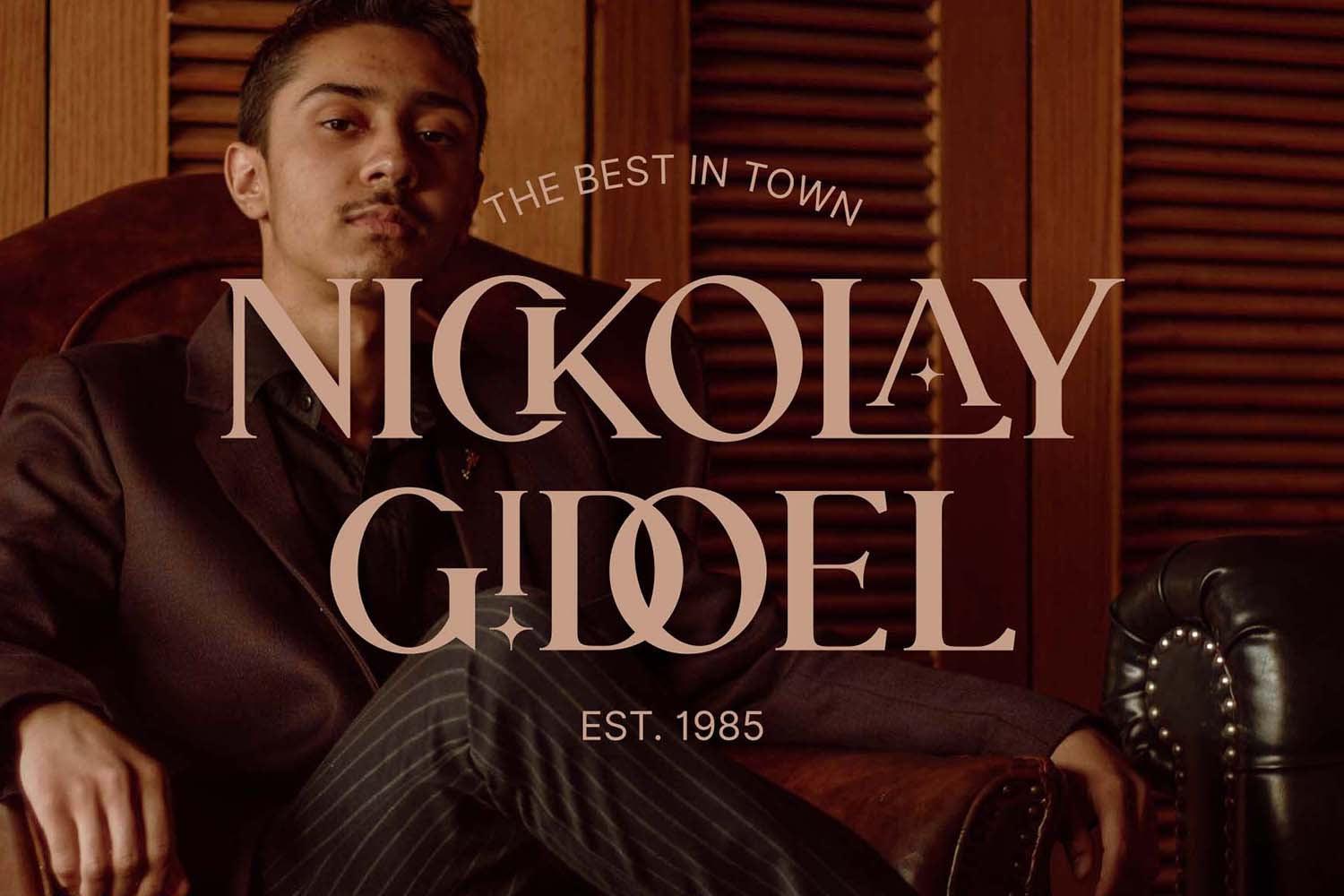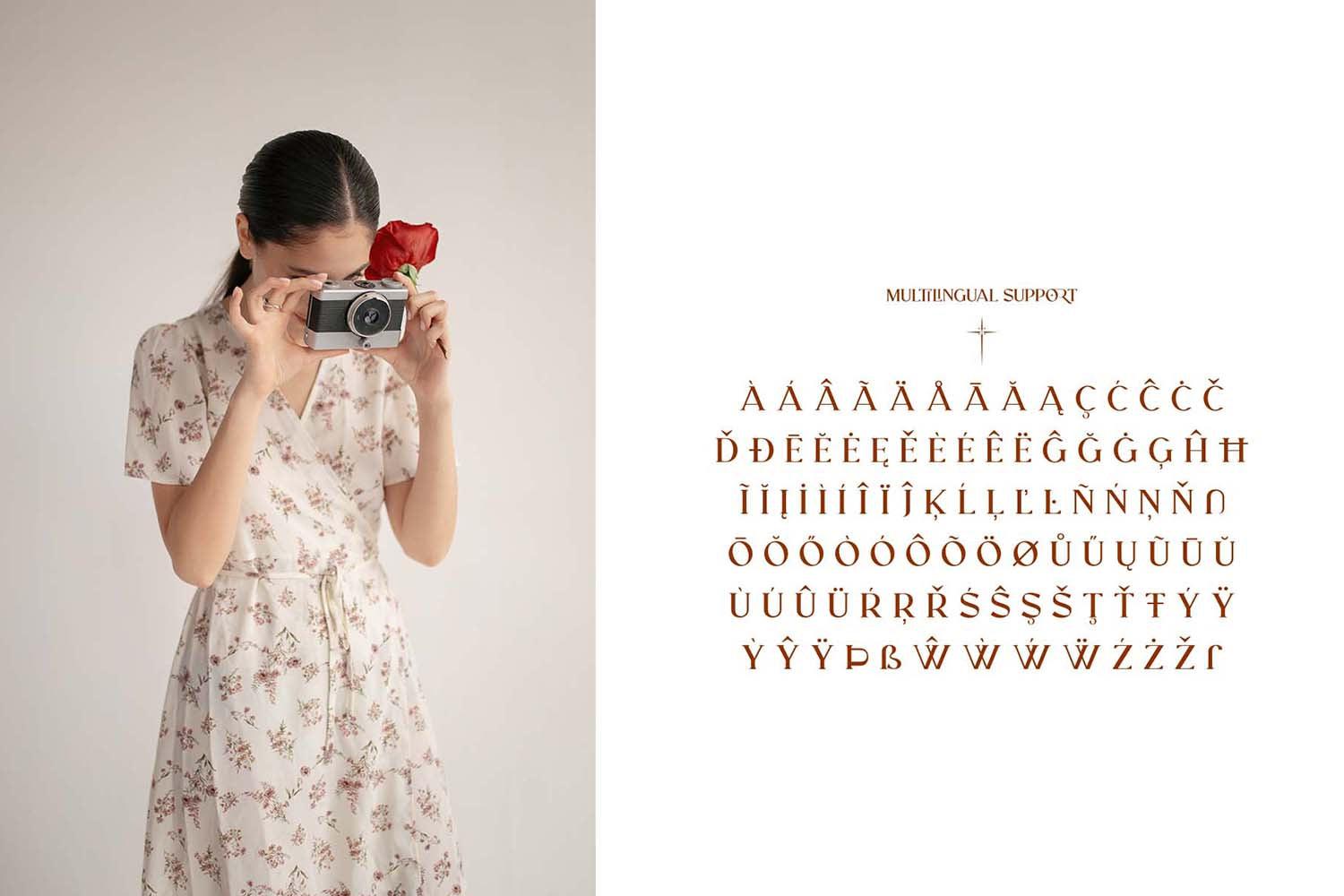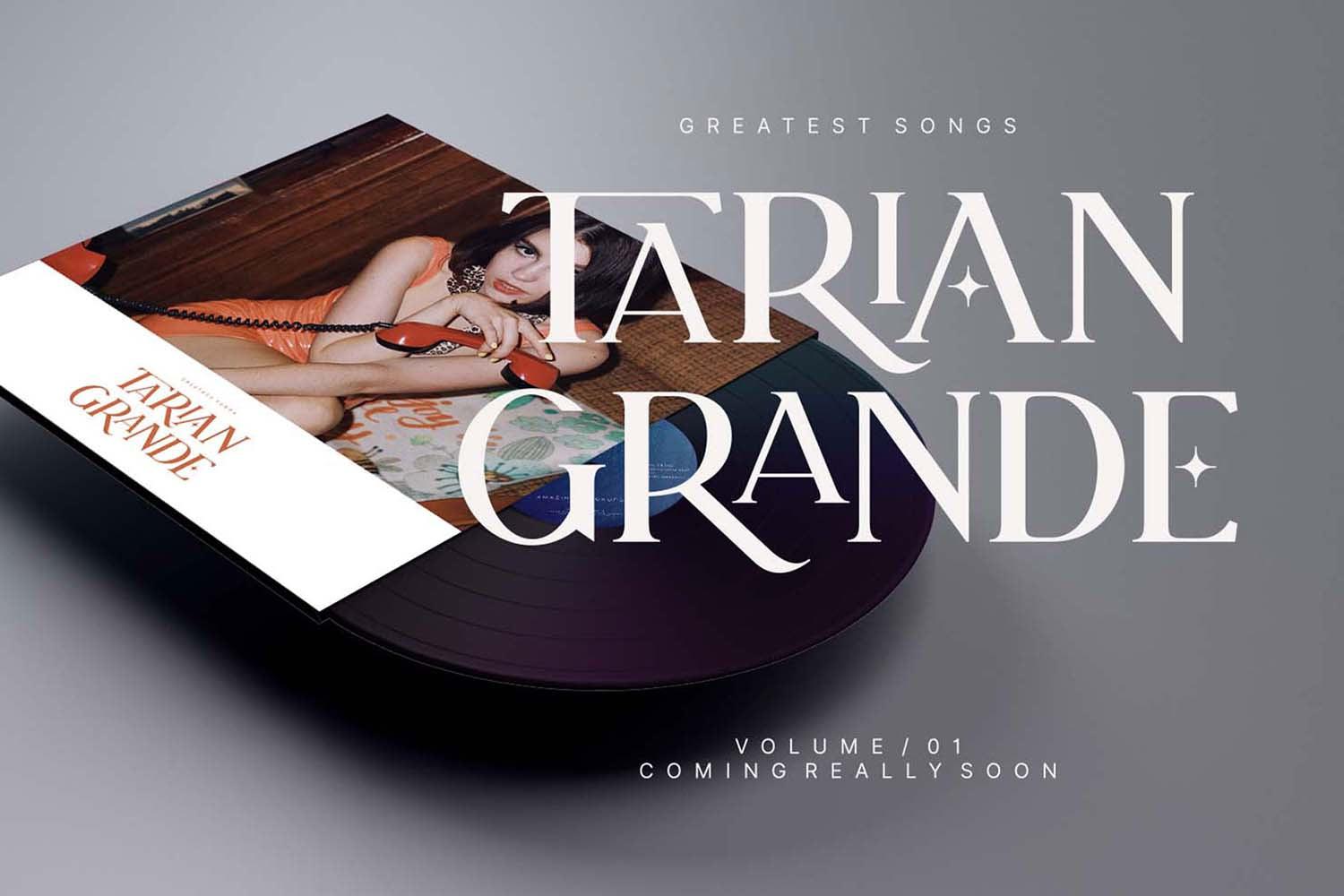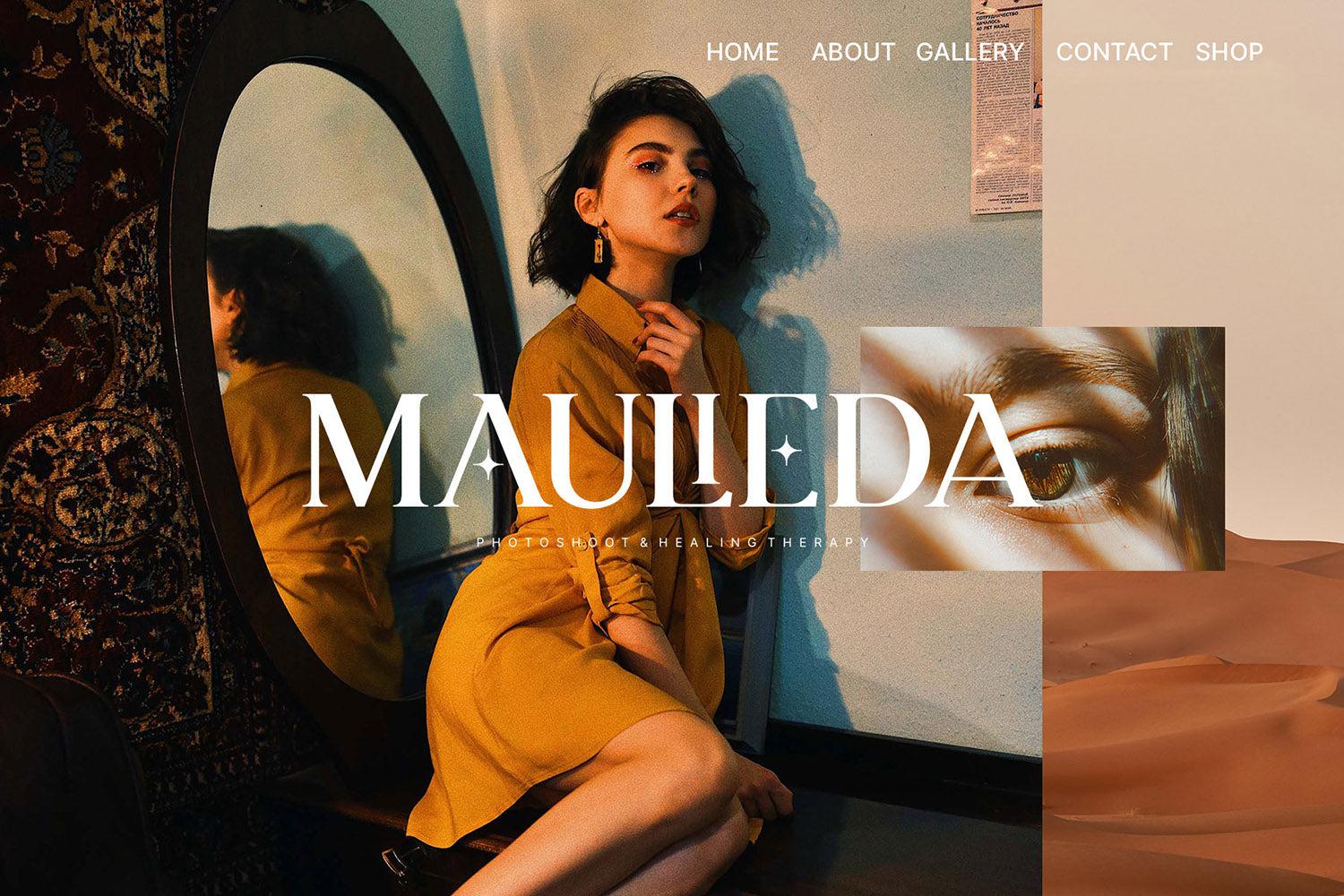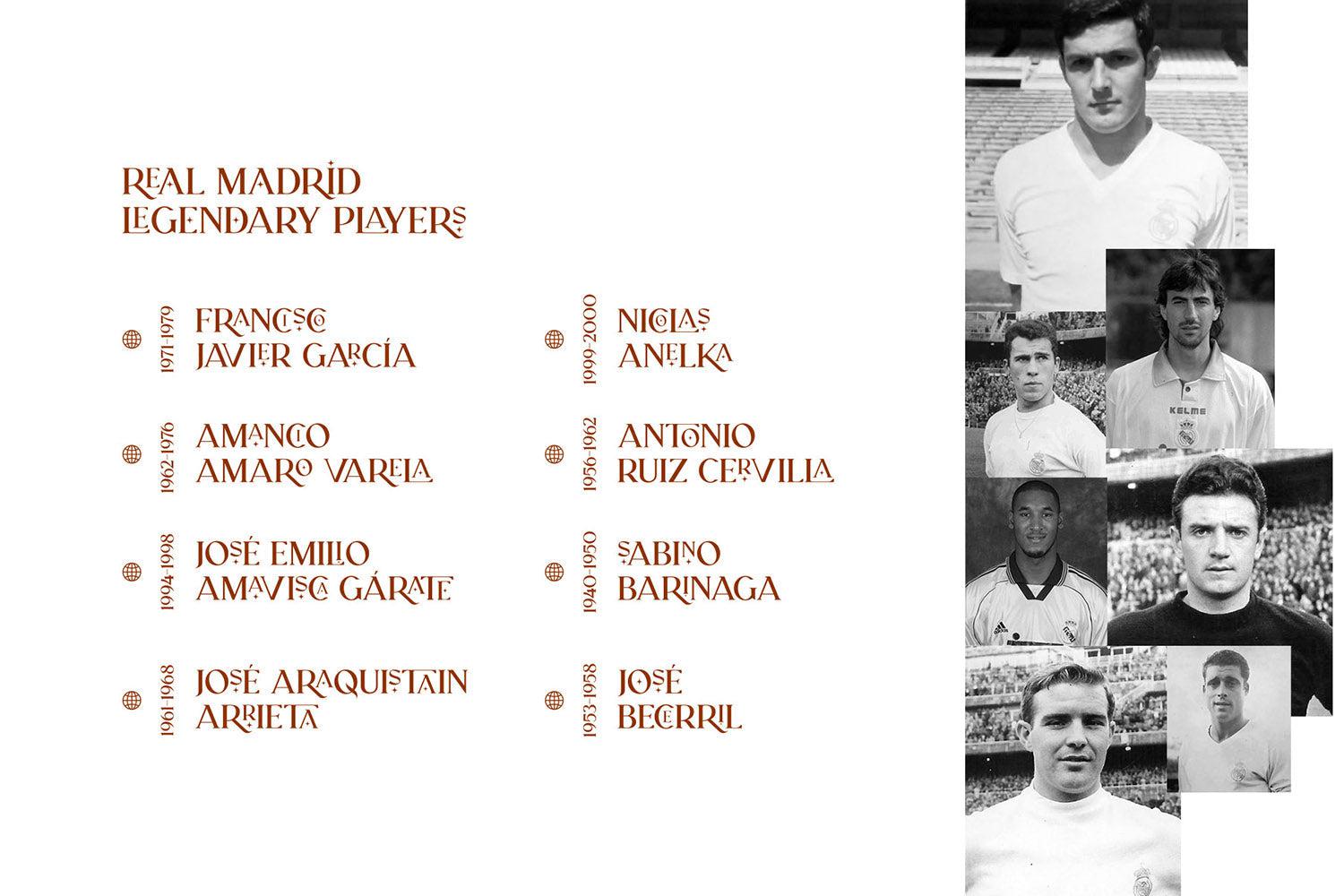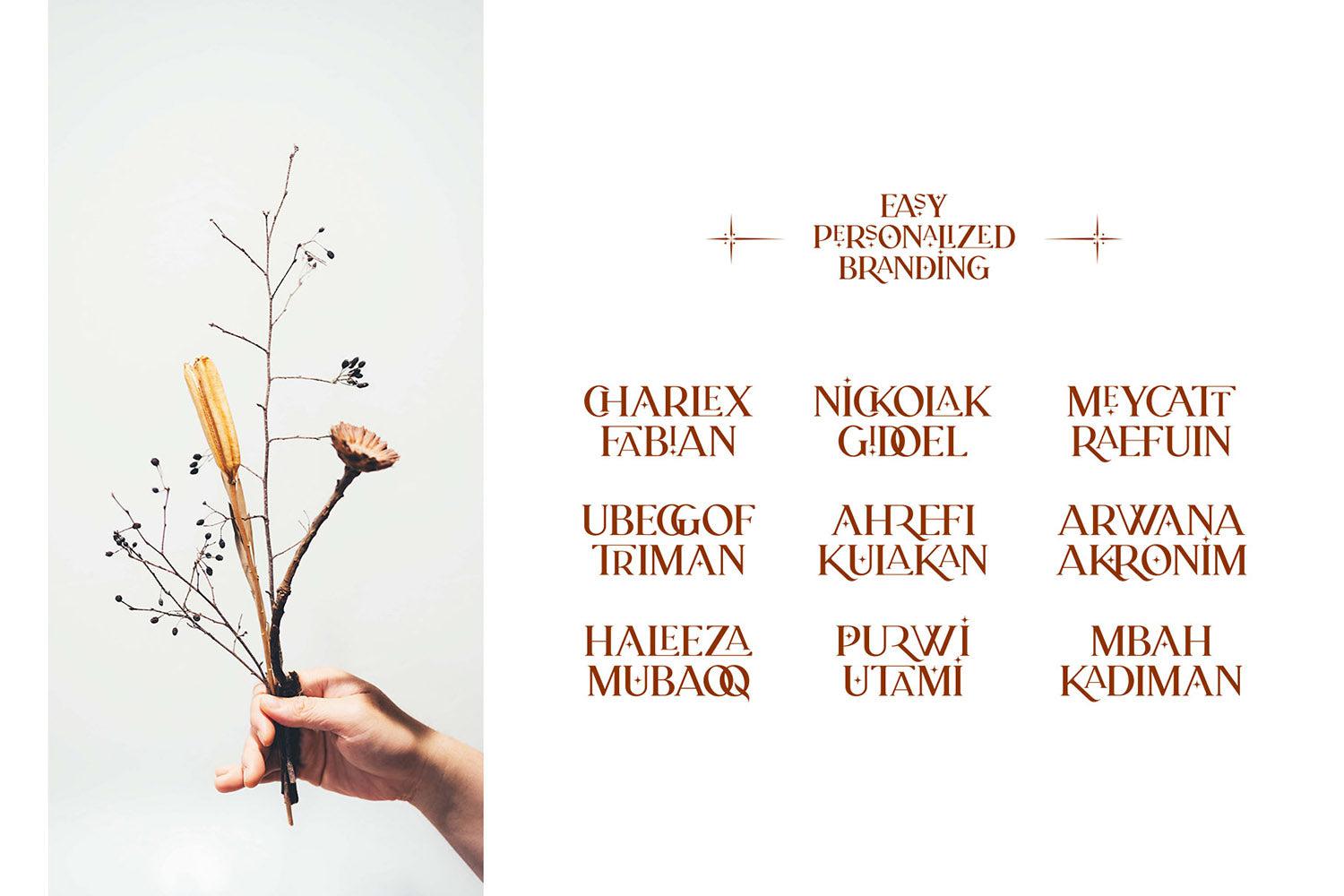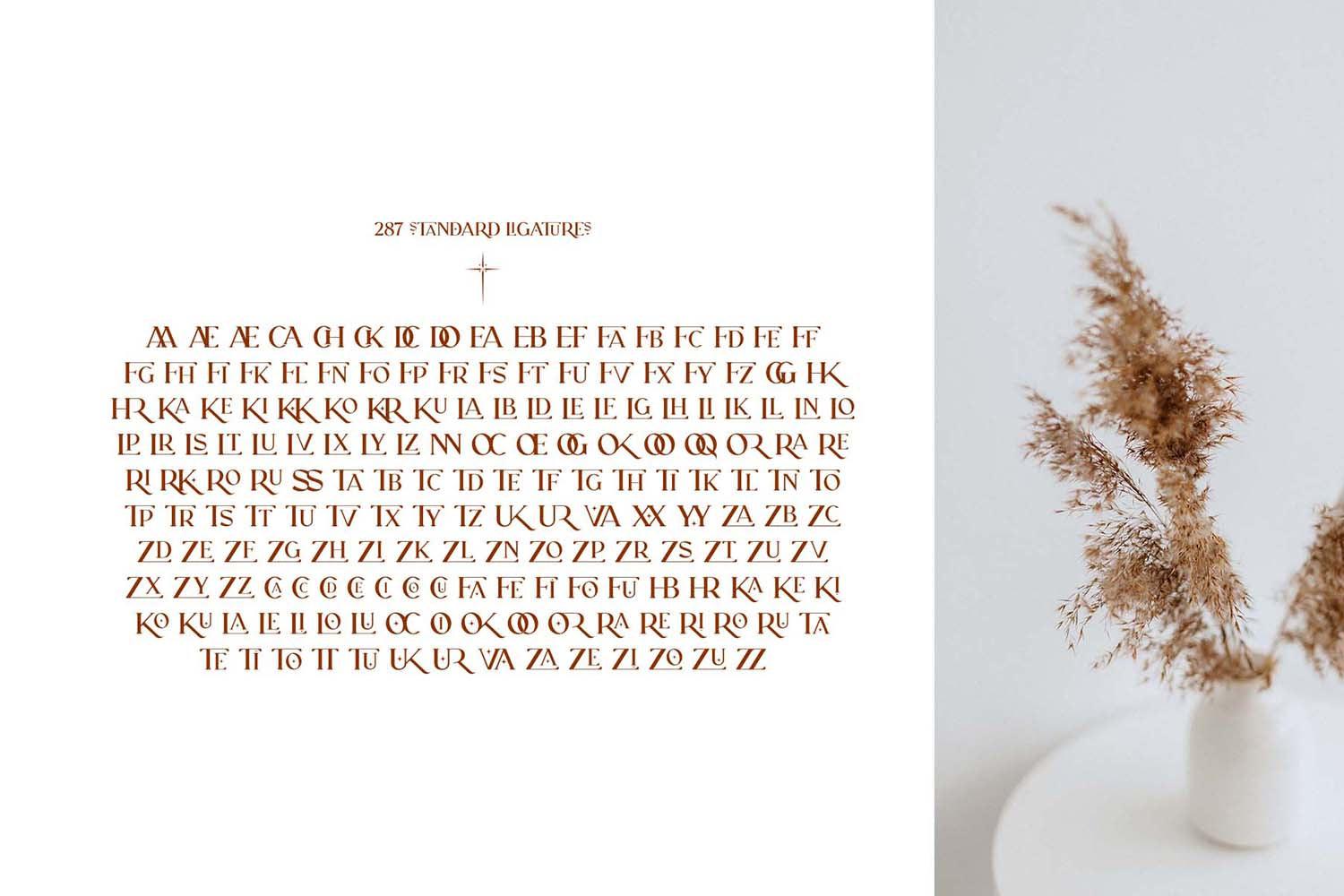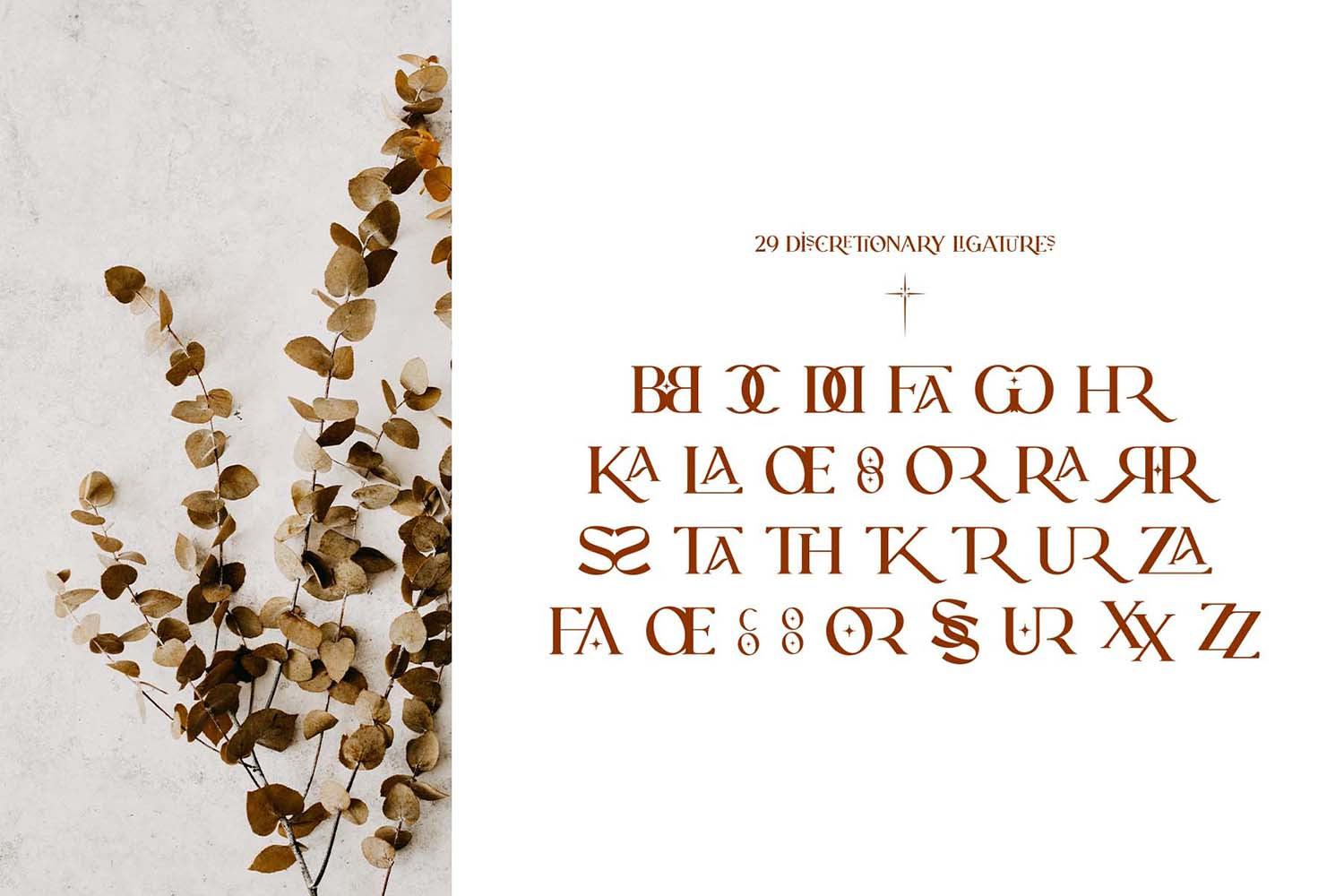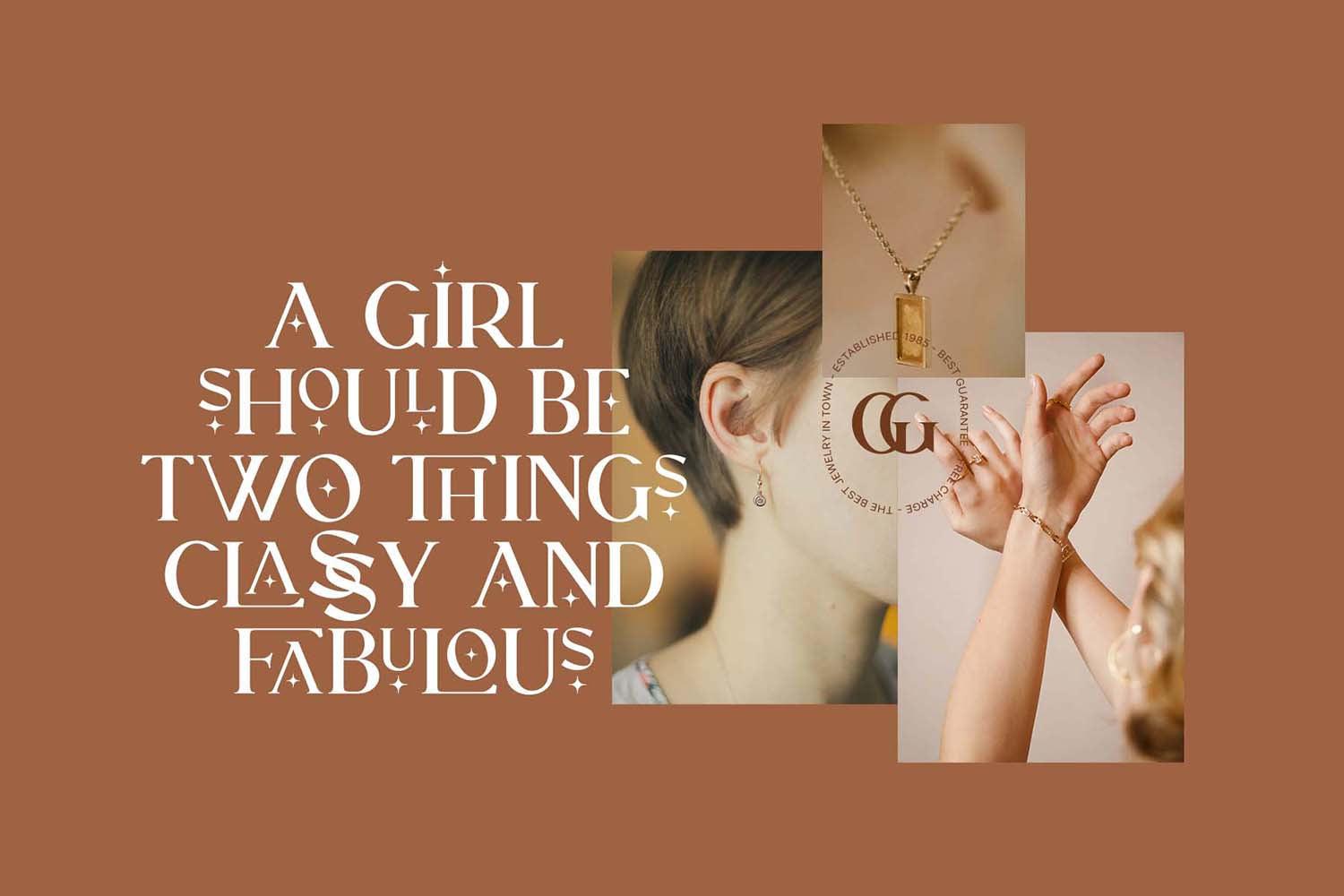
RELIGATH is a elegant and classy serif typeface with tons of ligatures. This font is both modern and nostalgic. For those of you who are needing a touch of elegant, stylish, classy, chic and modernity for your designs, this font was created for you. Yes, you!
It was purposely crafted to be used in large point sizes, although it doesn’t lose its magic in small point sizes. It is perfect for headline, billboard, magazines, website, titles, poster, branding, logos, social media posts, advertisements, product packaging, product designs, label, photography, watermark, invitation, stationery, etc. It is simple, easy to read, and works awesome in header. With this beautiful font, absolutely you can make your project stand out from the rest.